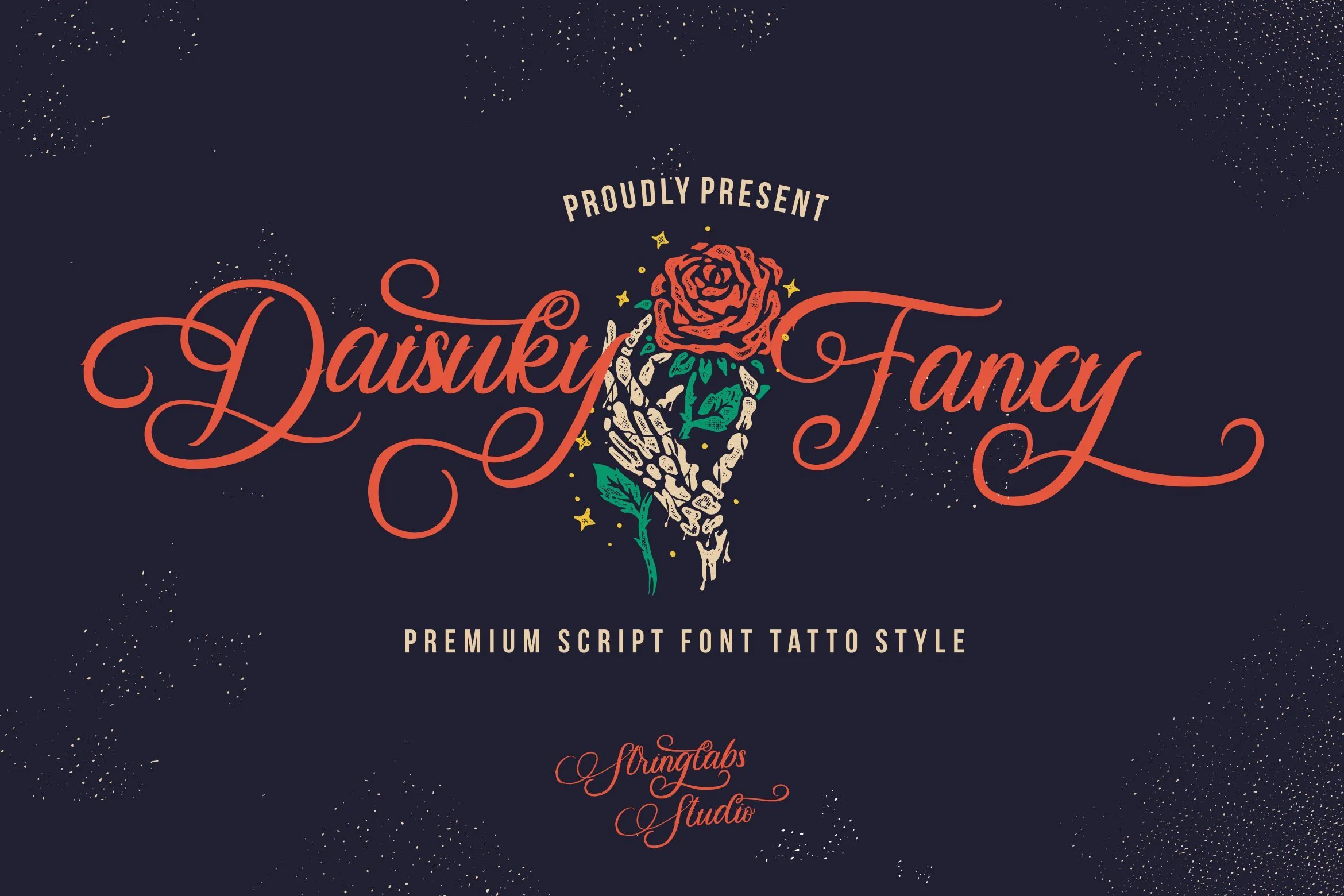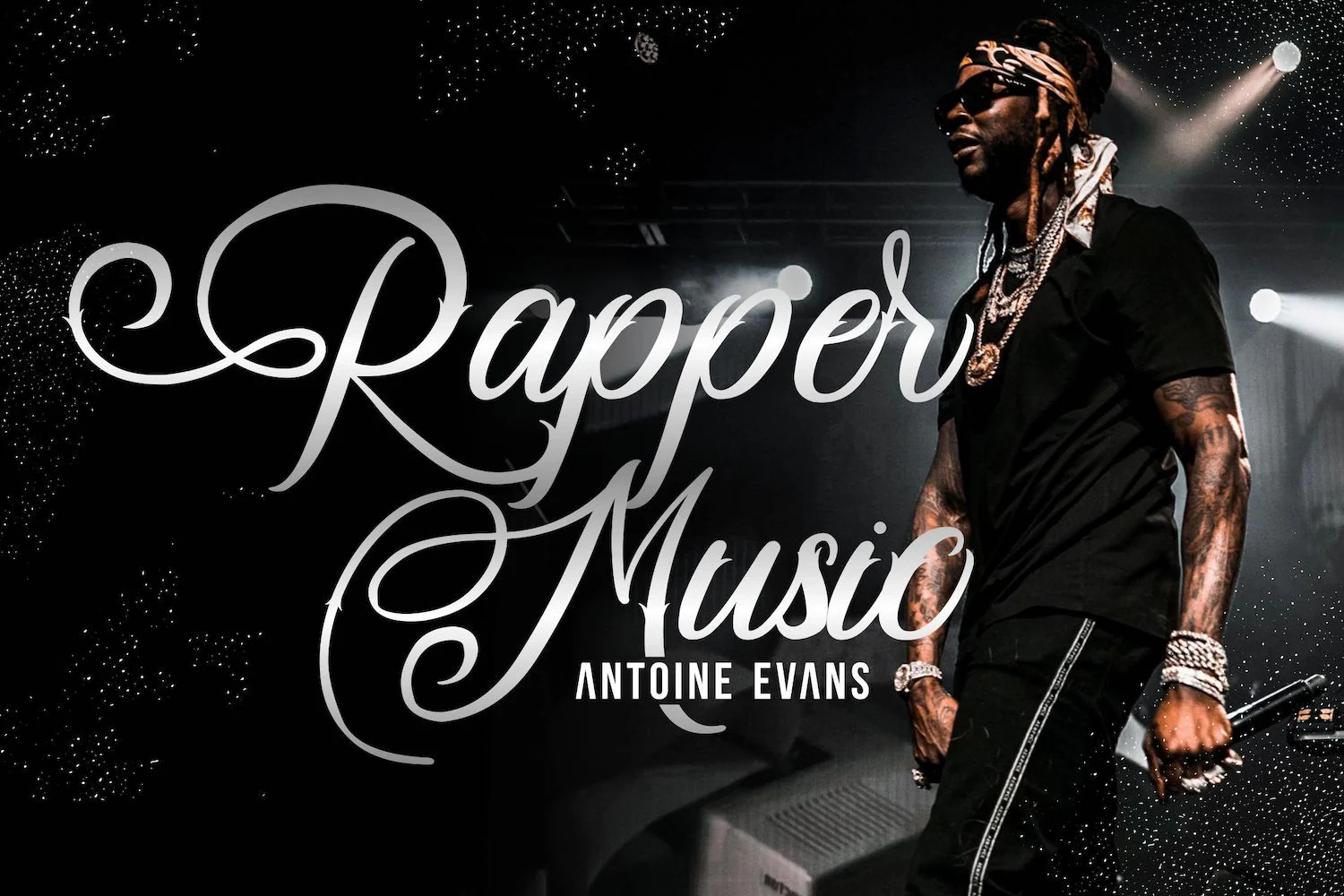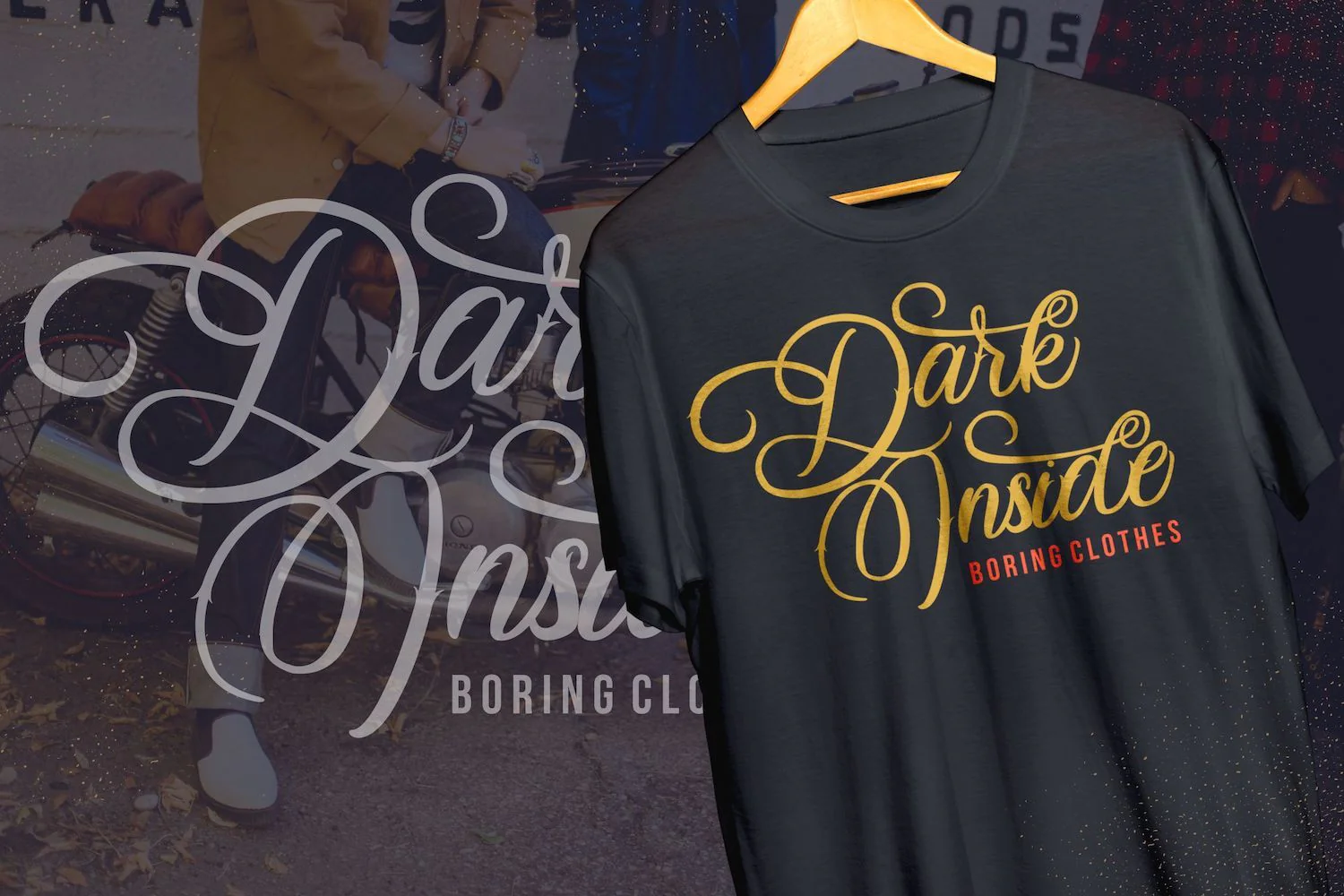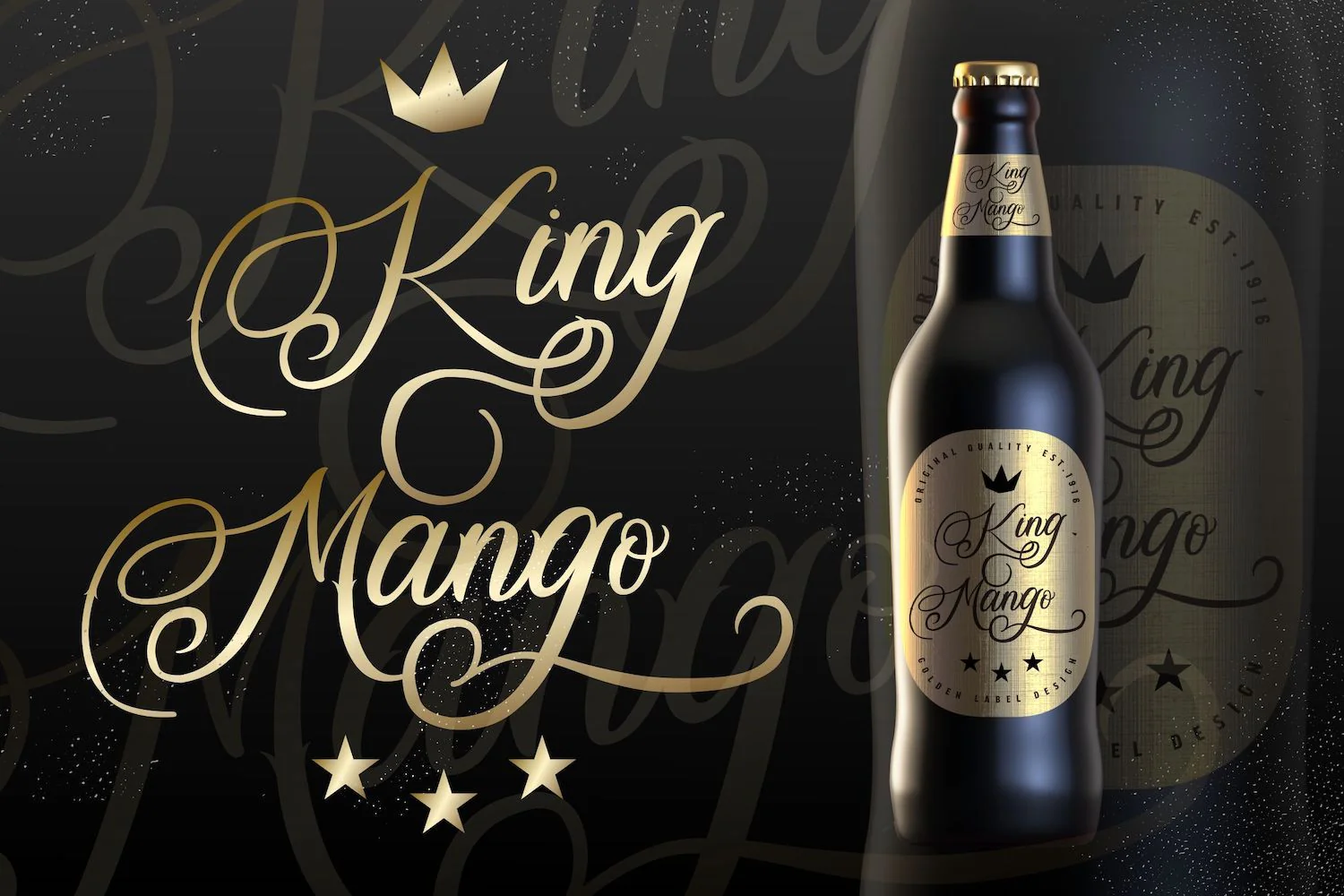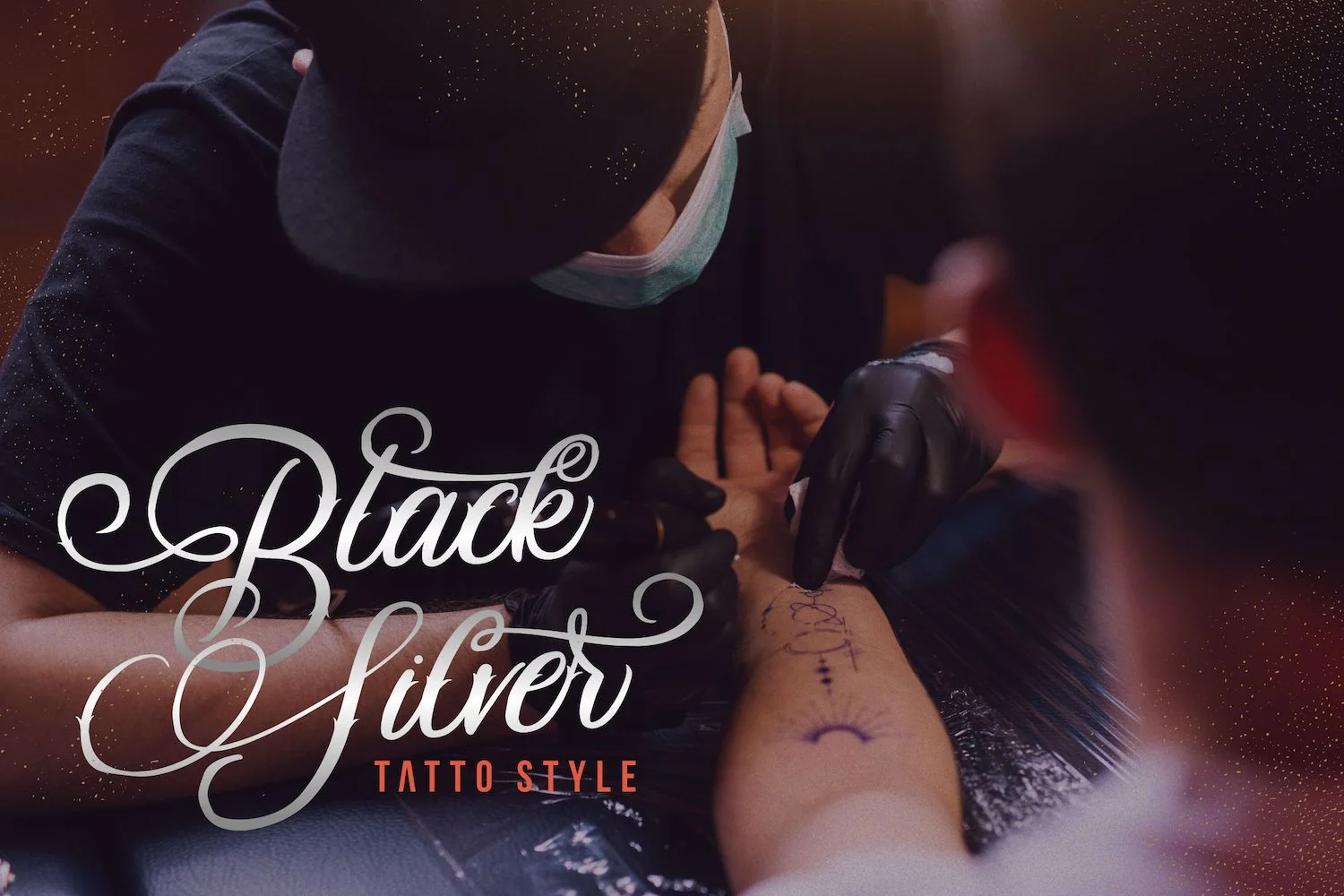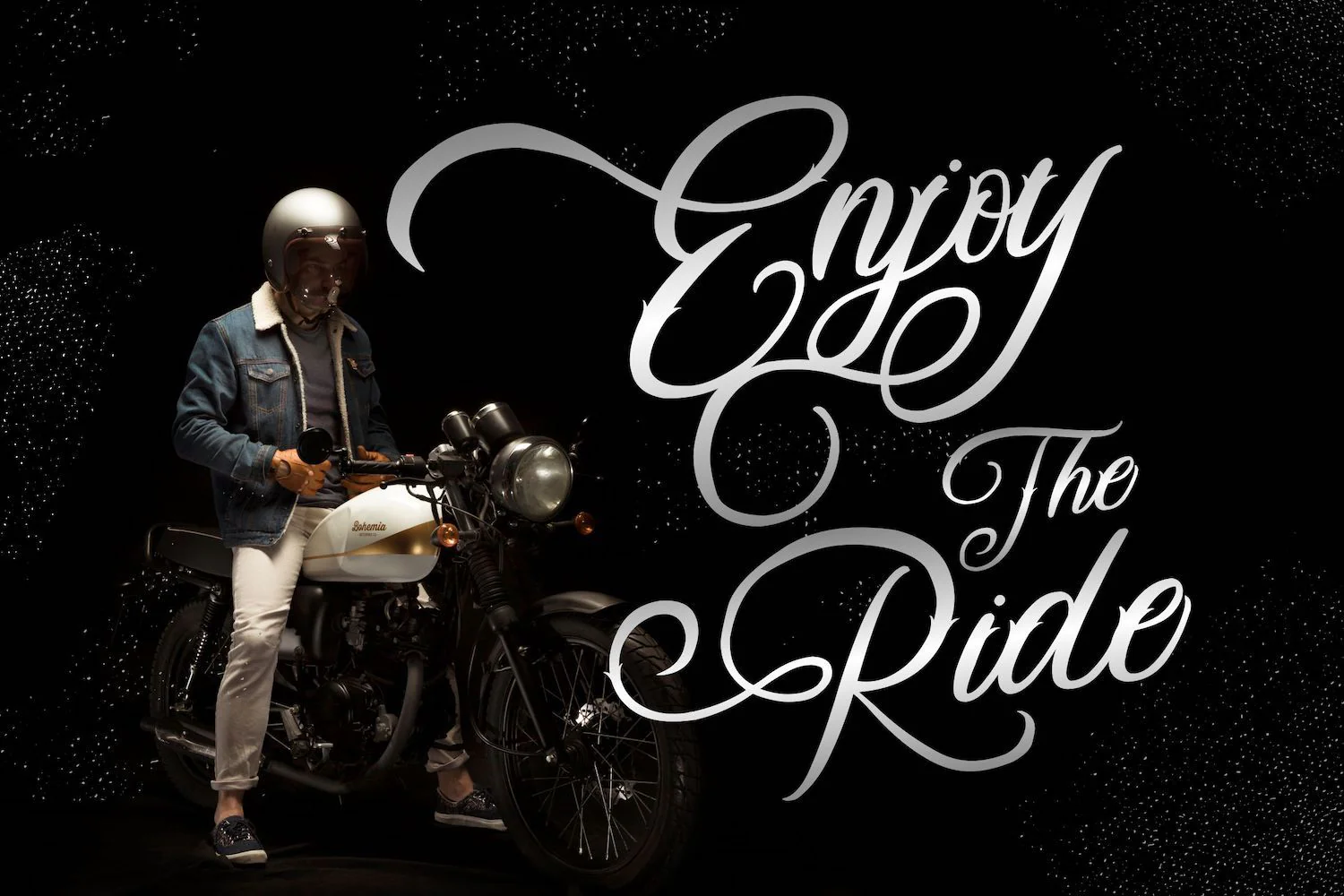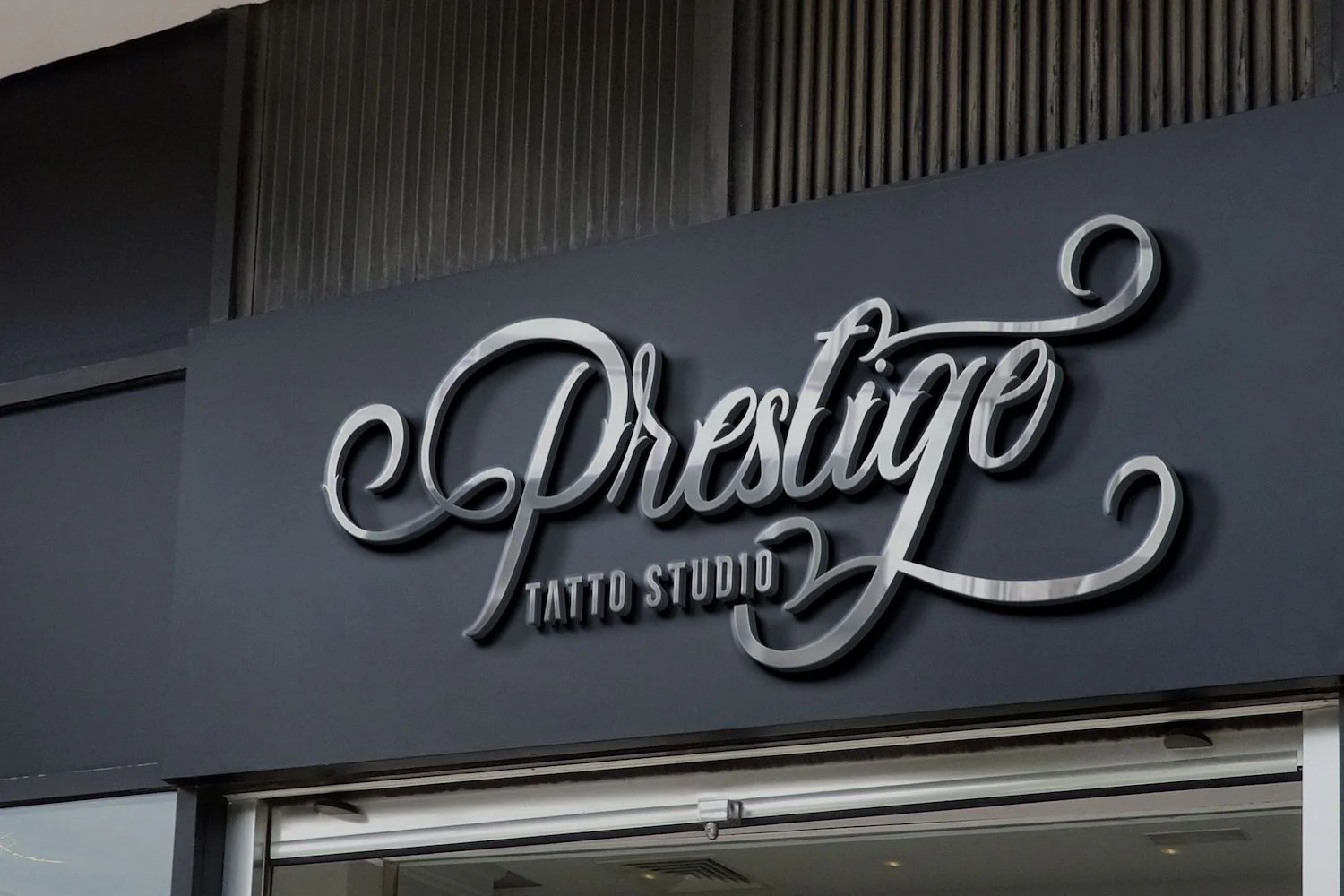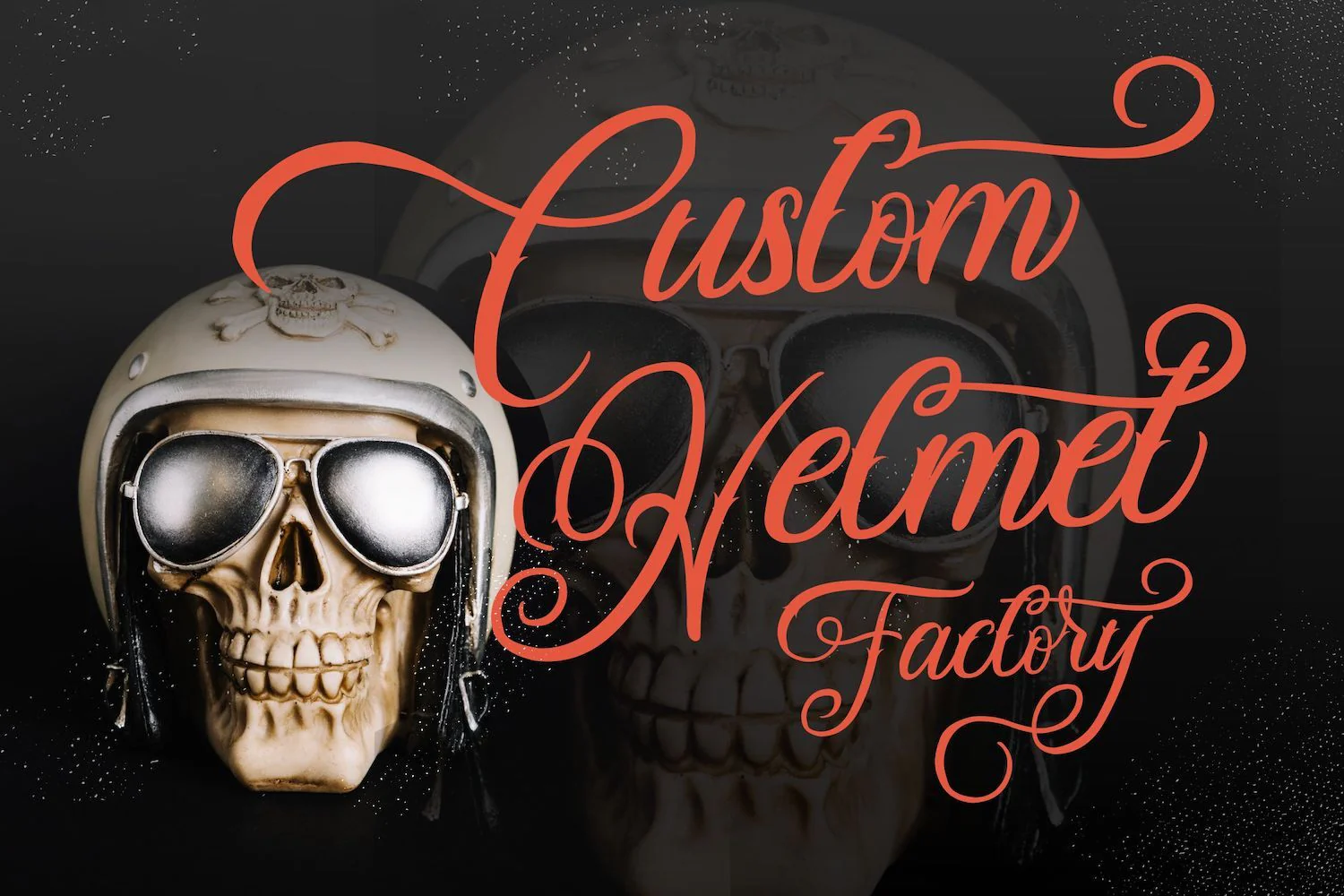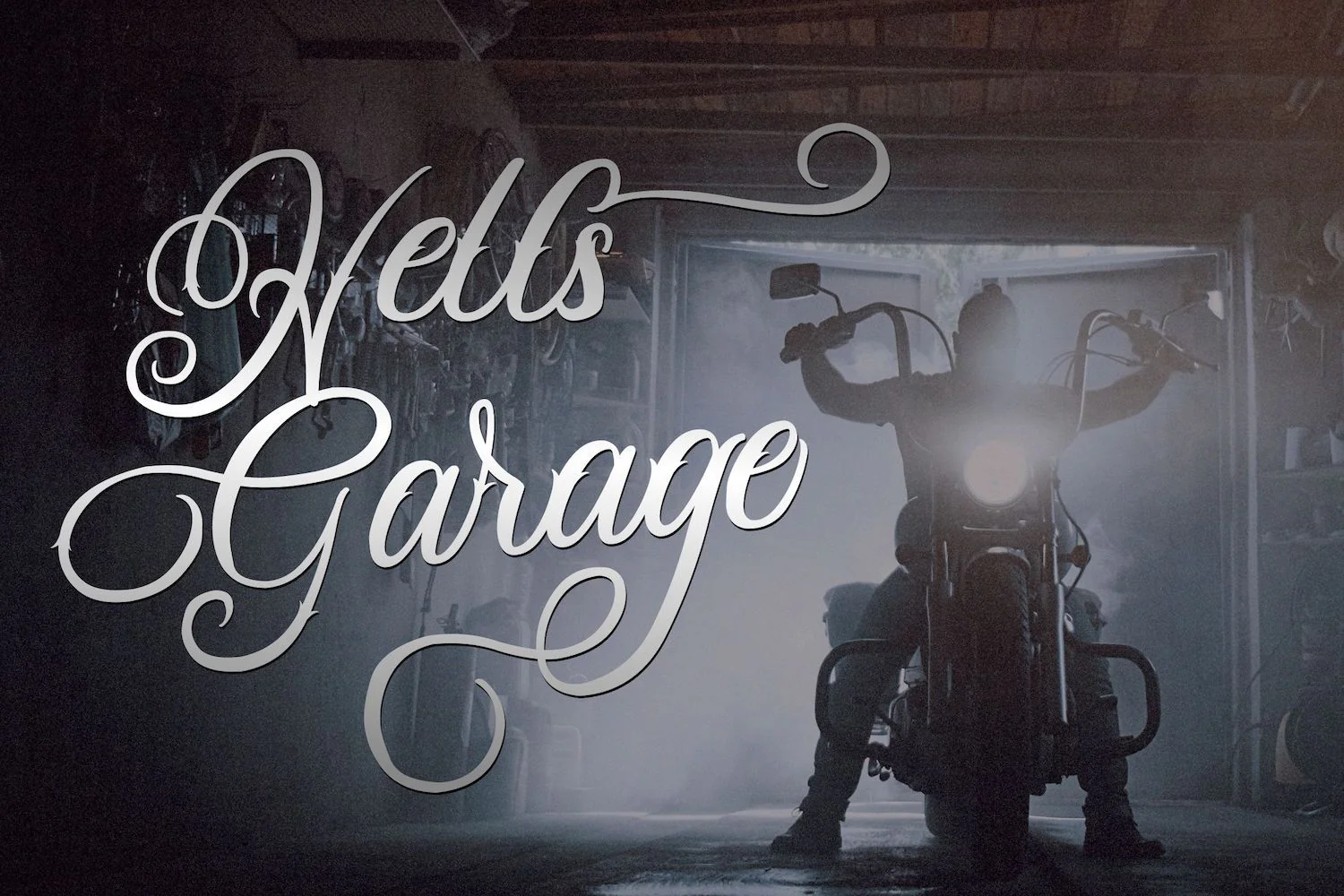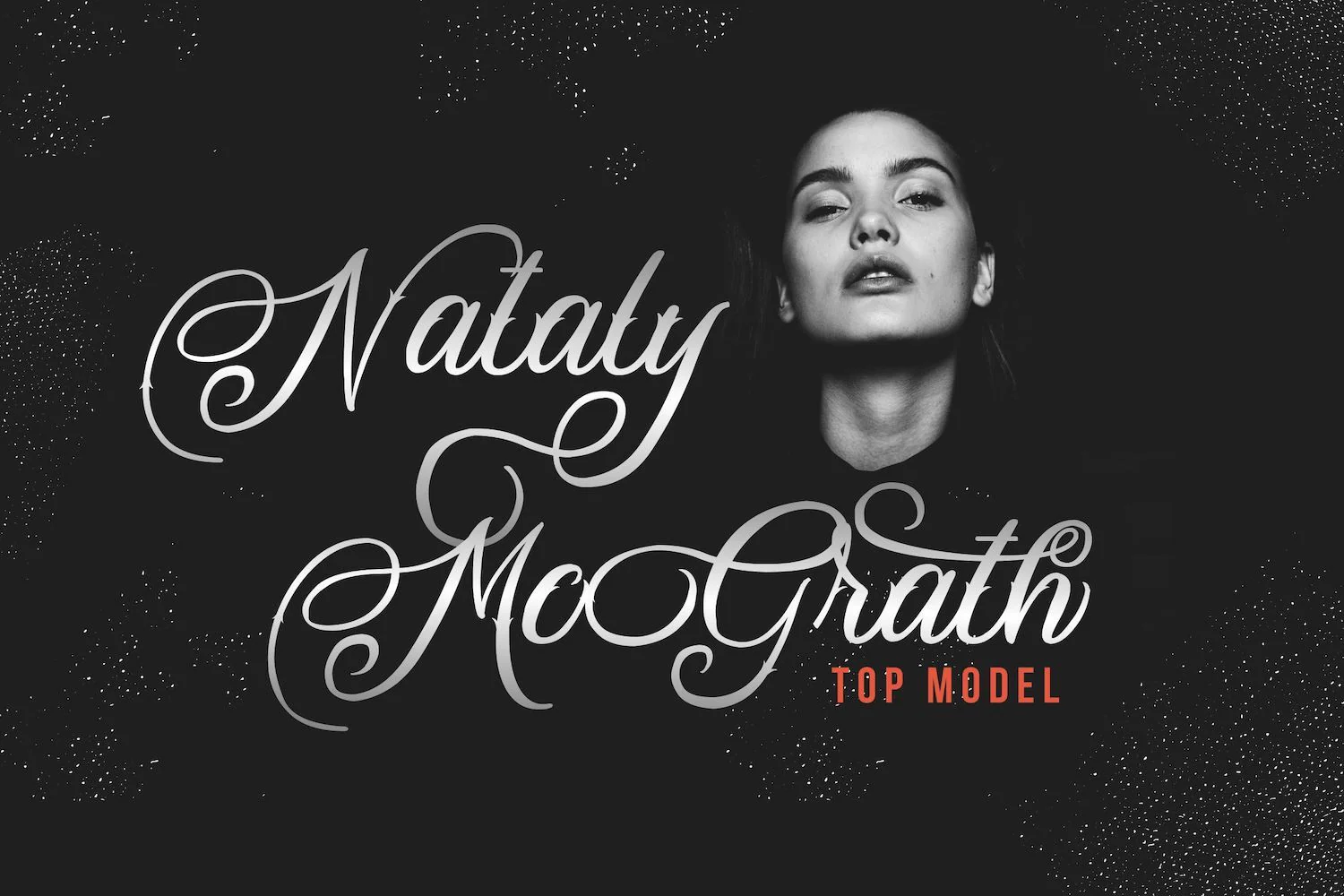
Daisuky Fancy - Tatto Script Font
Introducing Daisuky Fancy - Tatto Script Font
Daisuky Fancy is a delicate, elegant and flowing handwritten font. It has beautiful and well balanced characters and as a result, it matches a wide pool of designs. Daisuky Fancy features a varying baseline, smooth lines, gorgeous glyphs and stunning alternates. Add it to your most creative ideas and notice how it makes them come alive!
Introducing Daisuky Fancy - Tatto Script Font
Daisuky Fancy is a delicate, elegant and flowing handwritten font. It has beautiful and well balanced characters and as a result, it matches a wide pool of designs. Daisuky Fancy features a varying baseline, smooth lines, gorgeous glyphs and stunning alternates. Add it to your most creative ideas and notice how it makes them come alive!